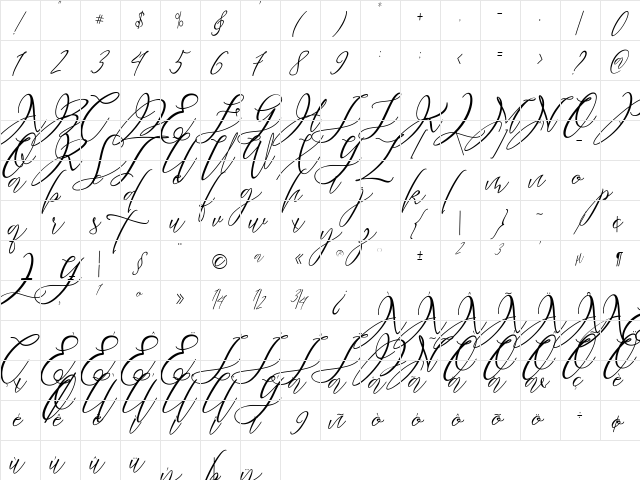
Heartkything Regular
| Foundry | khairul |
| Designer | khairul |
Design Context for Heartkything Typeface
Heartkything is a composed and adaptable typeface that performs quietly and consistently across a wide range of design contexts. Its slender proportions lend an understated elegance to any composition.